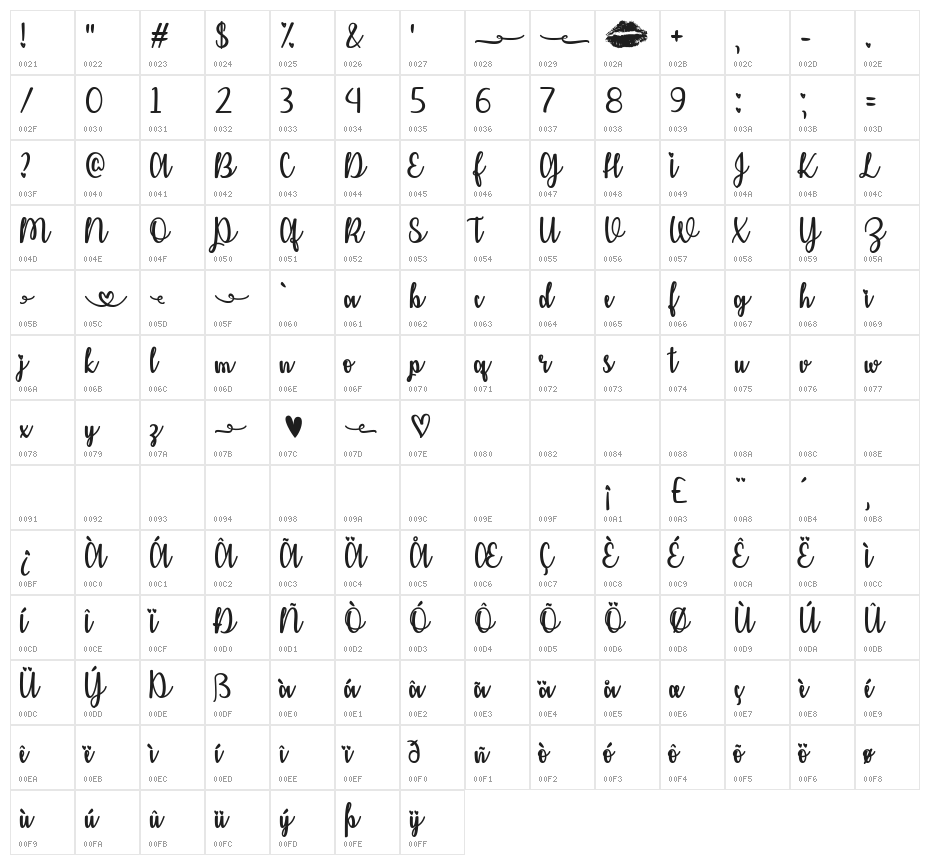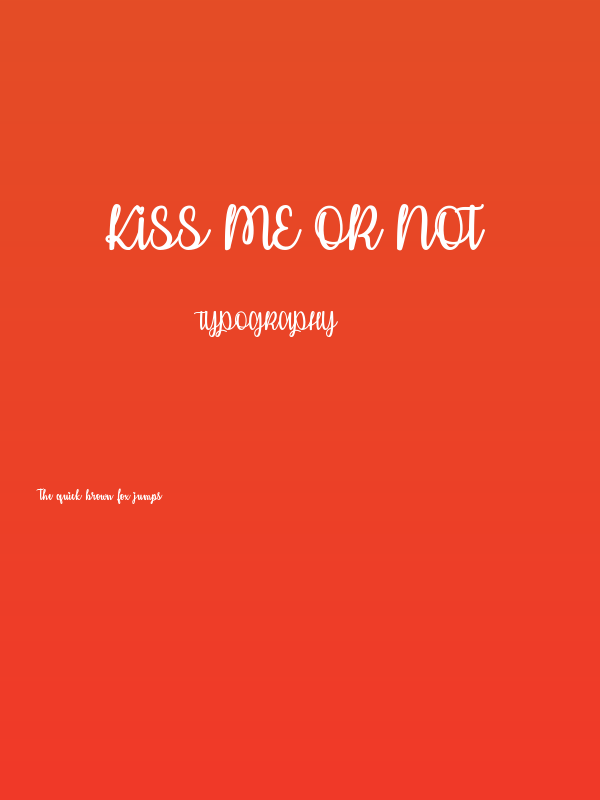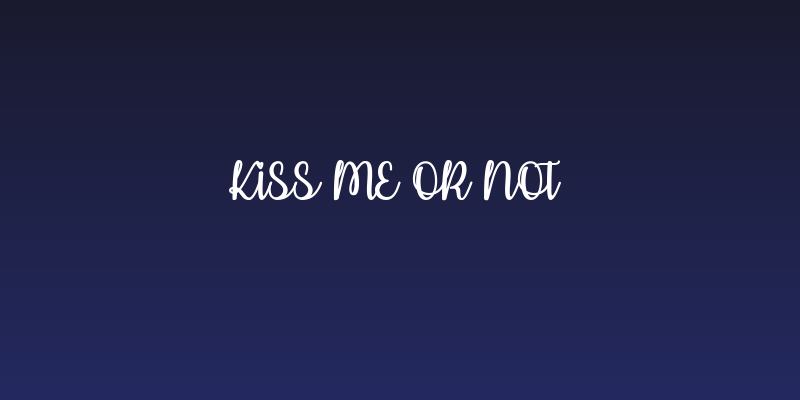
Kiss Me or Not Font
Kiss Me or Not Description
This playful and romantic script font features a whimsical, handwritten style with a touch of elegance. The letters are connected, creating a fluid and continuous flow, which adds to its charm. The uppercase letters are bold and slightly larger, while the lowercase letters maintain a consistent size, enhancing readability. The font includes unique heart-shaped accents on certain characters, adding a touch of love and personality. The numbers are clear and easy to read, matching the overall style. Special characters are creatively designed, with some featuring decorative elements like swirls and a kiss mark, making it perfect for projects that require a personal and affectionate touch.
| Proposed Projects | Ideal for wedding invitations, romantic greeting cards, personal branding, and love-themed merchandise. |